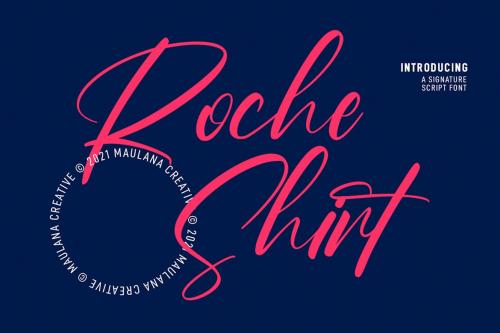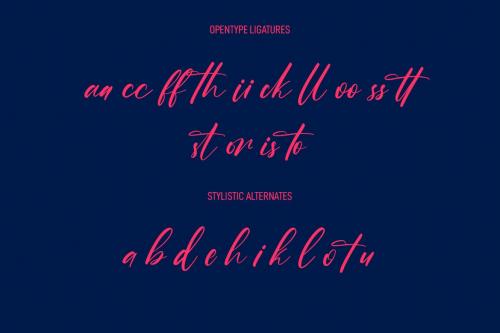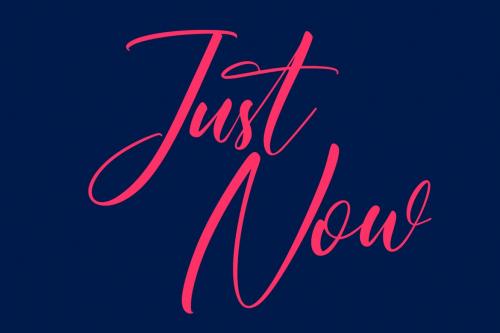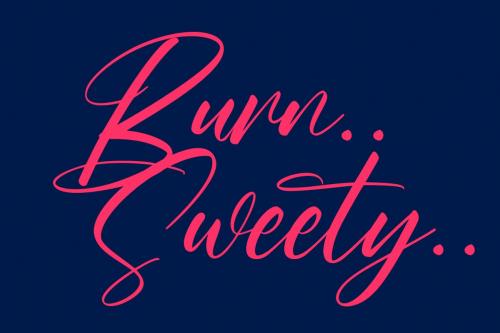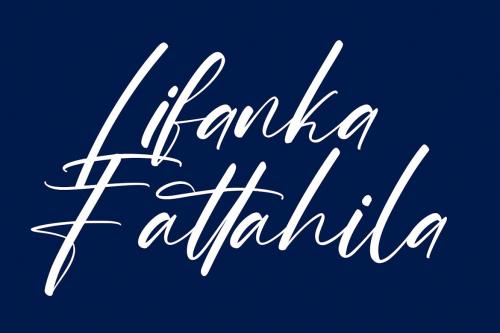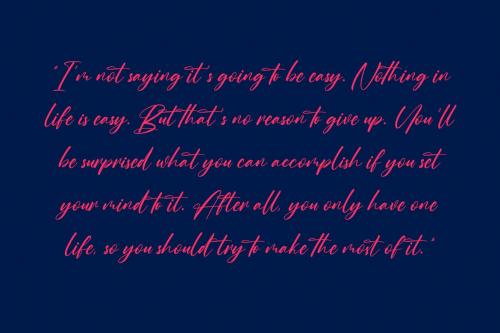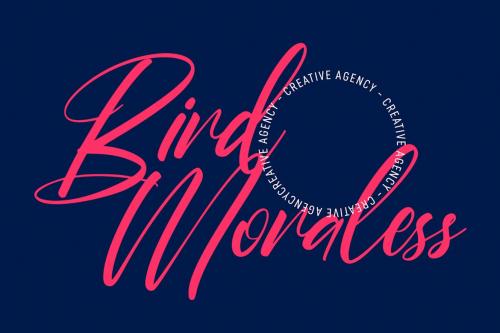
罗氏衬衫 script 字体
Roche Shirt Script Font
"Roche Shirt" is a stylish script font. With light contrast stroke, fun character with a bit of ligatures. To give you an extra creative work. "Roche Shirt" font support multilingual more than 100+ language. This font is good for logo design, Social media, Movie Titles, Books Titles, a short text even a long text letter and good for your secondary text font with sans or serif. Make a stunning work with "Roche Shirt" font.